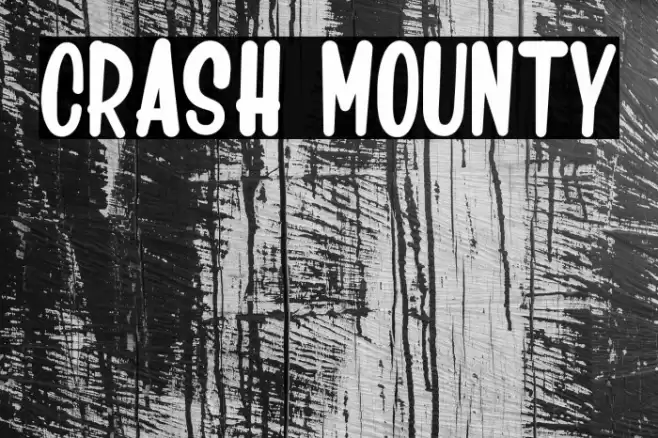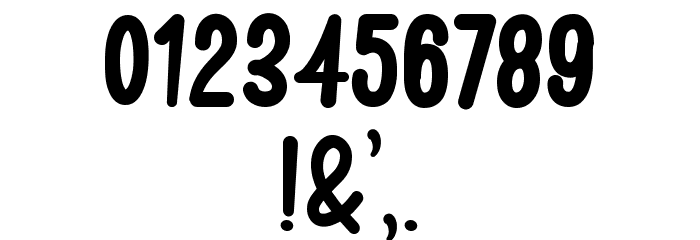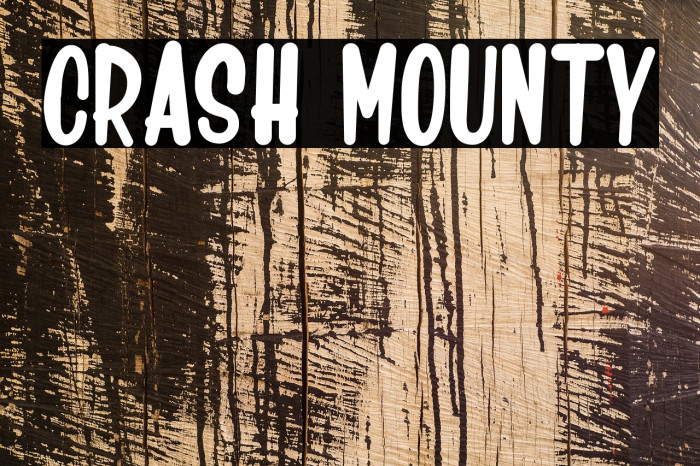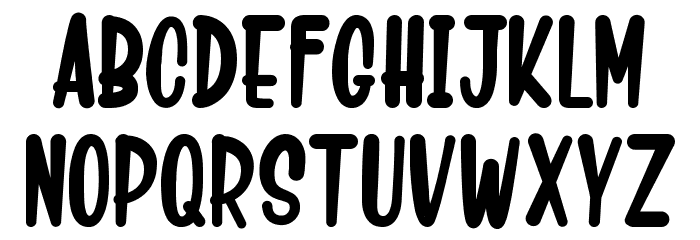
Crash Mounty Font
Crash Mounty Description
This font features a playful and bold style with rounded edges, giving it a friendly and approachable appearance. The characters are thick and slightly condensed, which makes them stand out prominently. The uppercase and lowercase letters maintain a consistent style, with a slight slant that adds a dynamic feel. The numerals are equally bold, ensuring readability. Special characters like the exclamation mark and ampersand are designed with the same playful curves, enhancing the overall cohesive look. This font is ideal for projects that require a fun and engaging visual impact.
A bold, playful font with rounded edges and a slightly condensed style from Uncategorized fonts.
- Proposed Projects: Ideal for children's books, playful branding, posters, and social media graphics.
- Overall Style: Playful